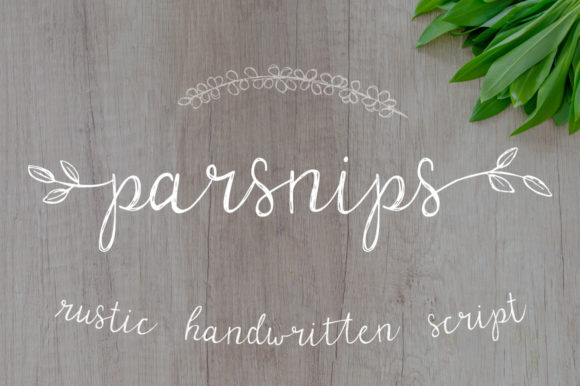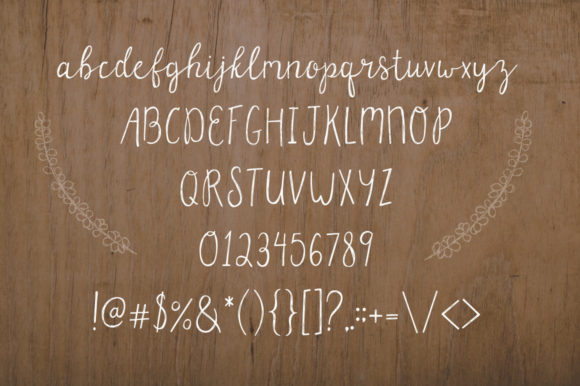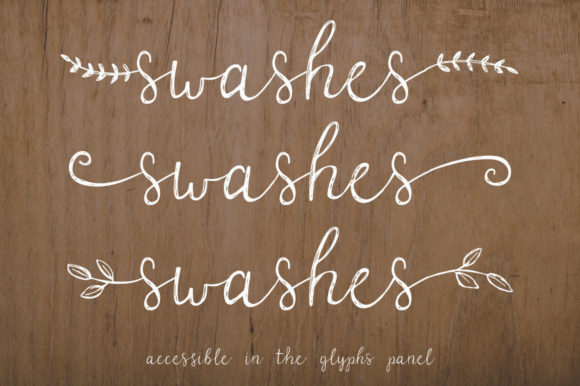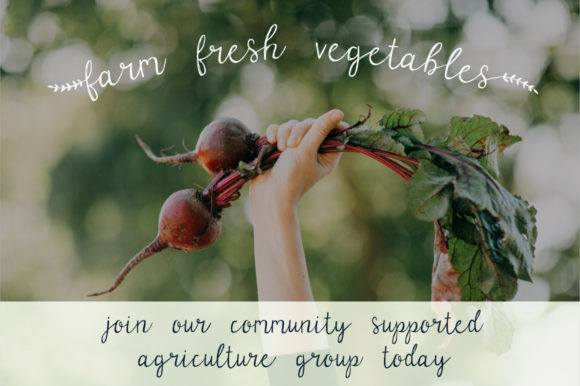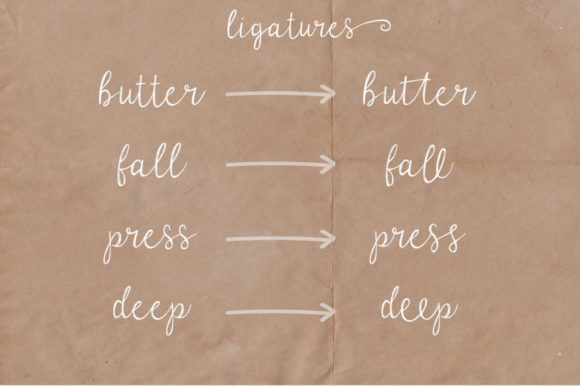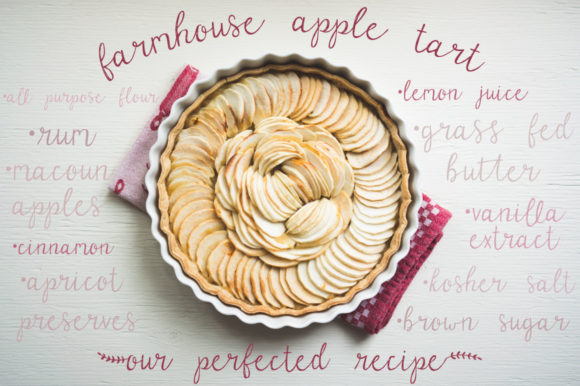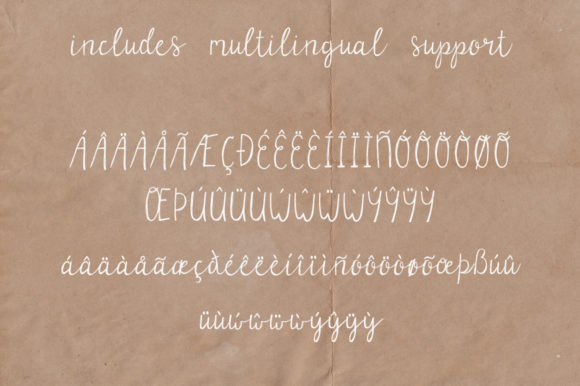
Parsnips Font
About Parsnips Font
“Parsnips” is a delightful and distinctive script font infused with a rustic charm. Drawing inspiration from the warmth of root vegetables, the radiance of sunshine, and the comfort of homemade meals, this font exudes a cozy and inviting vibe. What sets “Parsnips” apart is its inclusion of leafy swashes, introducing a botanical element that adds flair to any project.
This font finds its perfect home in the realm of magazines, where its unique and charming aesthetic can enhance layouts, headlines, and article titles. The warmth it exudes complements various content, creating an engaging reading experience.
In the realm of home decor, “Parsnips” serves as a versatile tool for crafting visually appealing designs. Whether used in wall art, prints, or other decorative elements, the font brings a touch of rustic elegance, creating a cozy and welcoming atmosphere.
Digital scrapbooking enthusiasts will appreciate the character and individuality that “Parsnips” adds to their projects. Its handwritten style adds a personal touch to digital layouts, making memories come alive with a touch of warmth and nostalgia.
When it comes to brand design, “Parsnips” offers a unique and memorable typographic choice. It’s well-suited for businesses or products that aim to convey a sense of authenticity, homemade goodness, and a connection to nature.
For wedding invitations, “Parsnips” brings a charming and personalized touch. The script’s rustic vibe is perfect for couples seeking a down-to-earth and warm ambiance for their special day. The leafy swashes add a botanical flourish, creating invitations that are both elegant and nature-inspired.
In essence, “Parsnips” is a versatile font that seamlessly blends rustic charm with a handwritten aesthetic. Its adaptability makes it suitable for a range of creative projects, from magazines and home decor to digital scrapbooking, brand design, and wedding invitations. With its unique character and botanical elements, “Parsnips” adds a touch of warmth and personality to every design it graces.